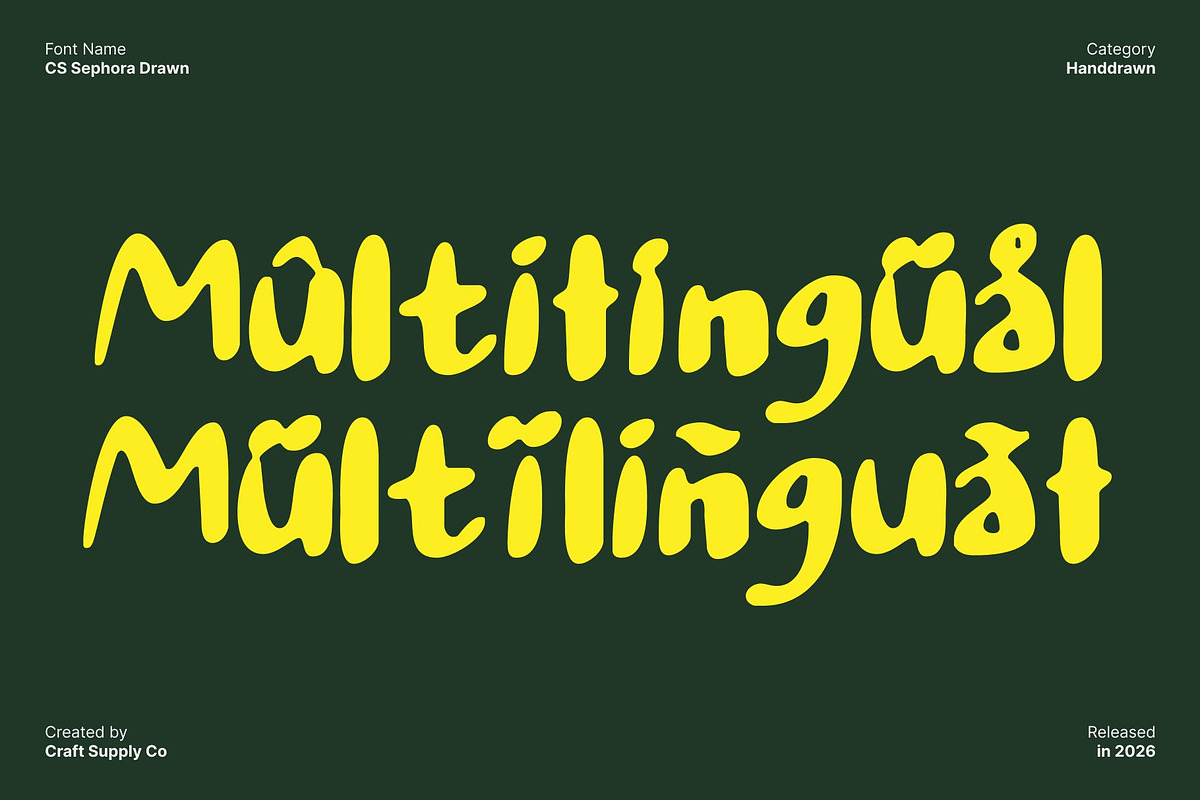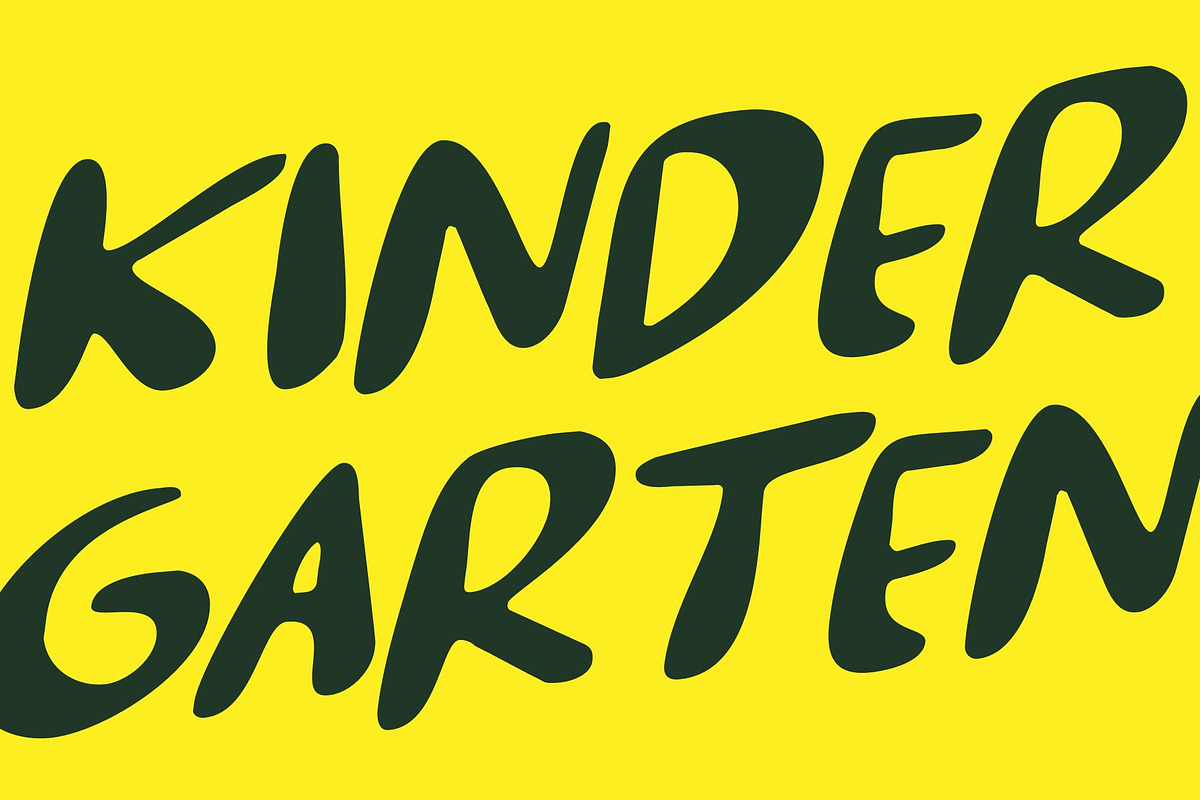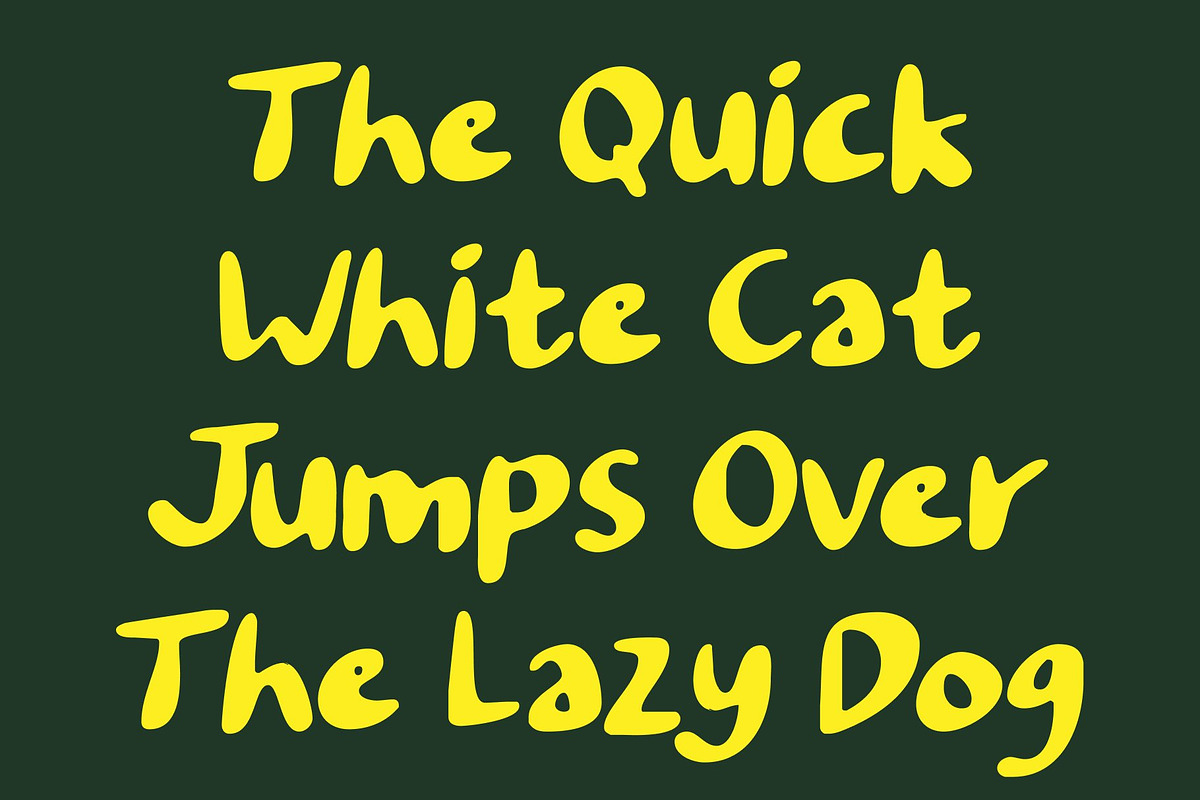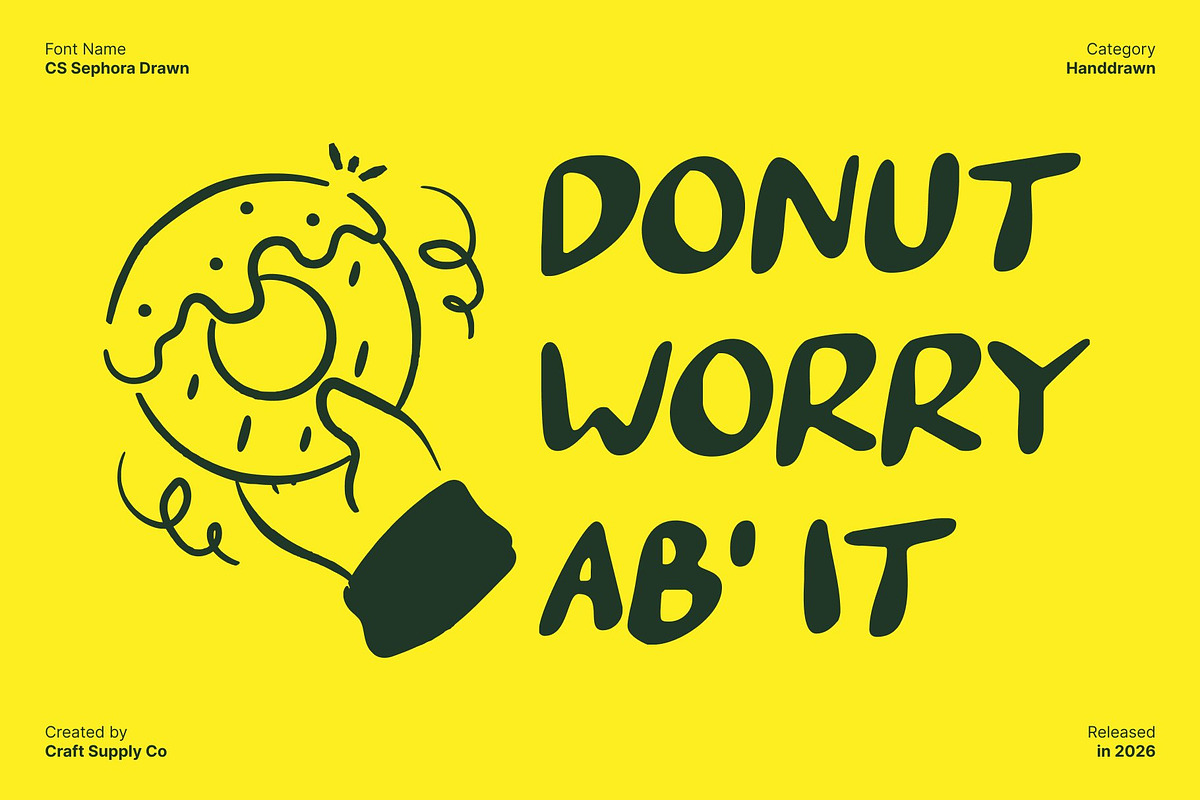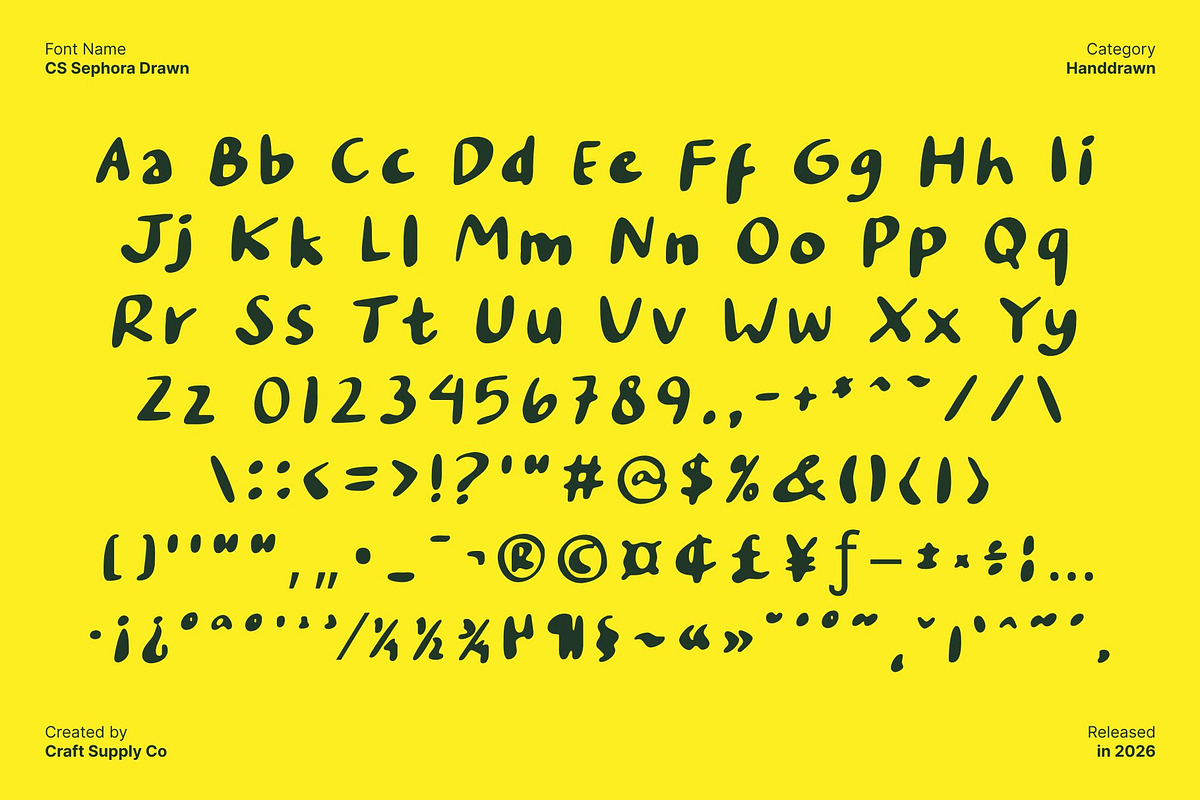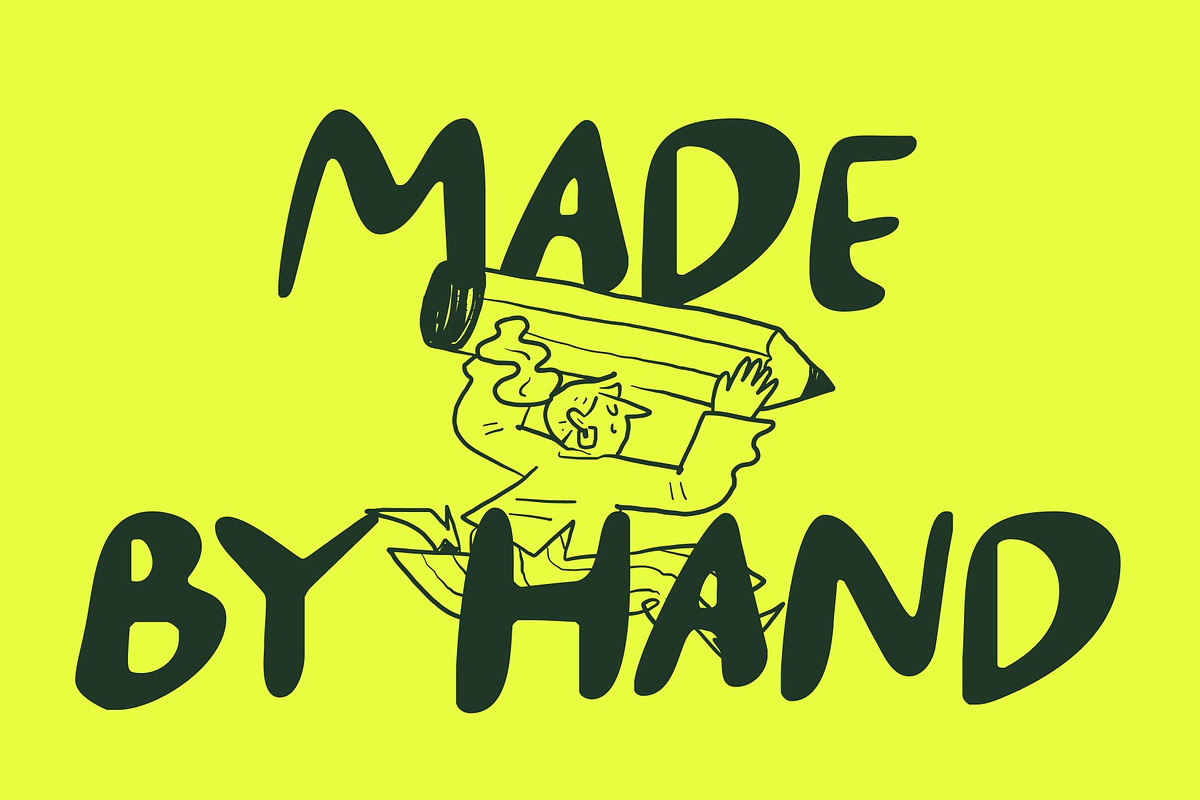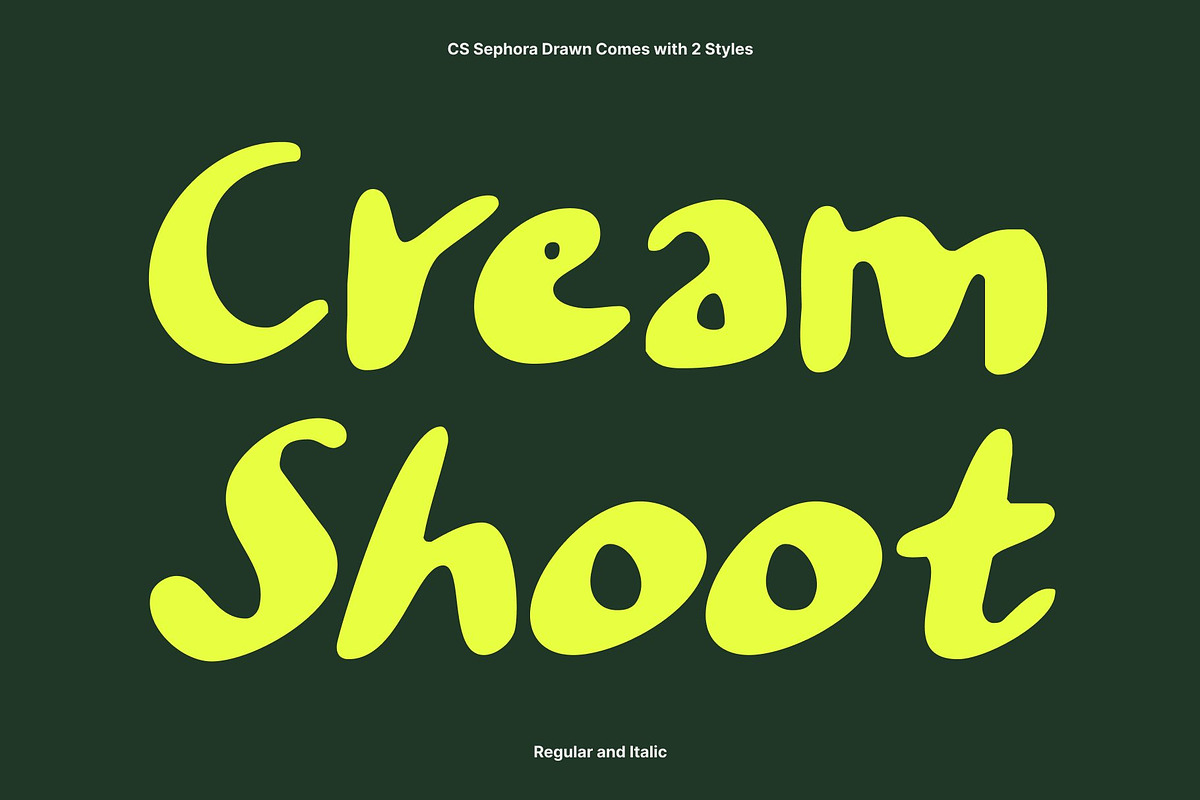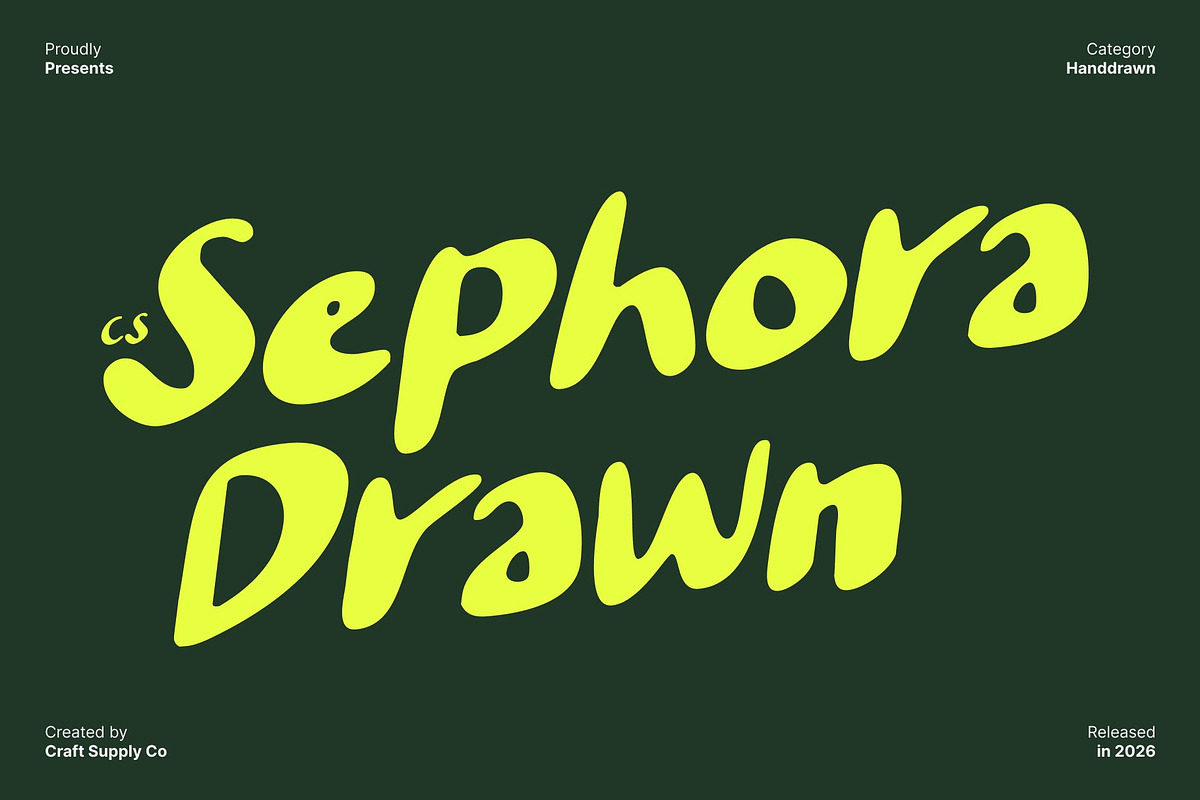
CS Sephora Drawn
CS Sephora Drawn – Handwritten Marker Sans Serif Font: Bold Expression in Every Stroke
Dynamic Handcrafted Marker Style This is a bold handwritten marker sans serif font that merges clean typographic structure with the freedom of natural hand lettering. Each stroke feels spontaneous and intentional, creating a lively visual rhythm that captures attention while maintaining clarity. The handcrafted quality gives the font a strong human presence, making it feel expressive and authentic.
Playful Energy with Confident Attitude This font strikes a perfect balance between playful charm and bold confidence. Thick marker strokes project strength and assurance, while the handwritten flow introduces warmth and personality. The result is a font that feels friendly yet assertive ideal for designs that want to communicate creativity without losing impact.
Textured Strokes for Authentic Visual Impact The subtle marker texture adds depth and tactile realism, evoking the sensation of ink pressed onto paper. This organic finish enhances the font’s raw appeal while keeping it visually polished. It creates a natural, engaging look that feels personal, expressive, and full of character.
Versatile for Branding, Posters, and Digital Design This font adapts effortlessly across creative projects, from bold headlines and logos to posters, social media, and modern branding. Its solid sans serif foundation ensures readability, while its expressive handwritten style injects energy, authenticity, and contemporary creativity into every design.
- CS Sephora Drawn Regular
- CS Sephora Drawn Italic